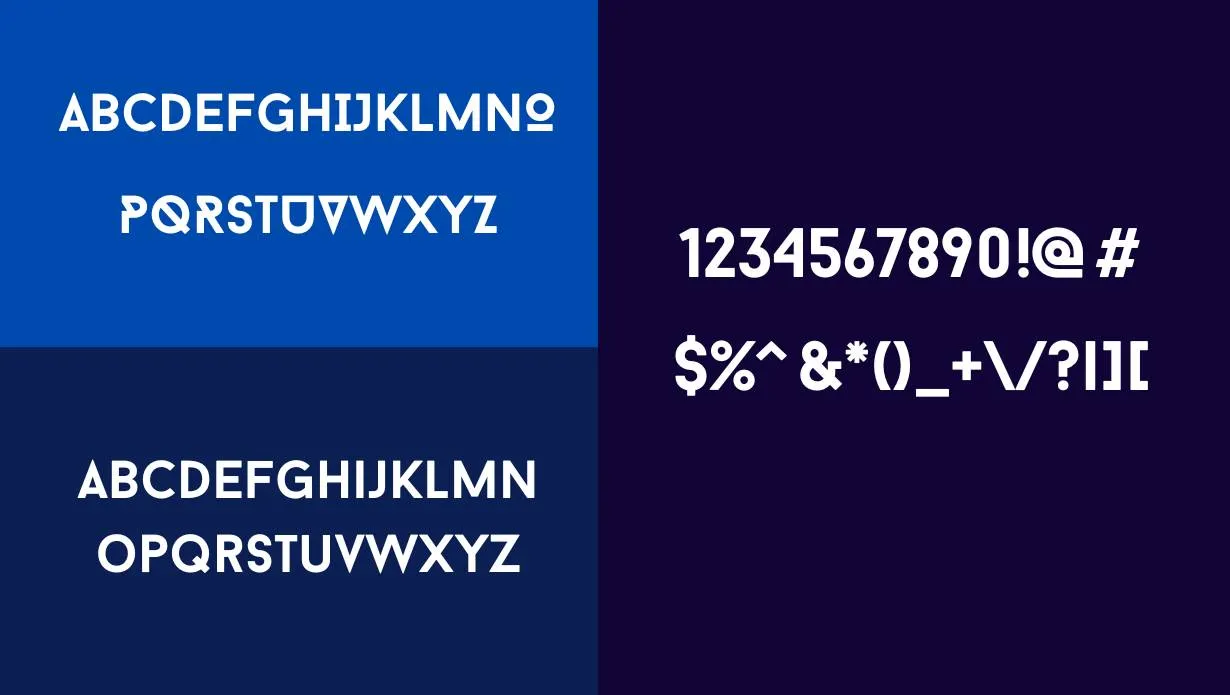
Baron font is a contemporary and fashionable typeface that is often used in designs that aim for a strong and powerful appearance. Its clean and geometric letters give off a sleek and modern vibe.
| Name | Baron Font |
| Designer | Frank Hemmekam |
This font is often used in logos, headlines, or modern branding. The weight of Baron font is usually bold, ensuring a strong and commanding presence. Its width is relatively standard, making it ideal for larger text applications like titles in posters or branding materials.